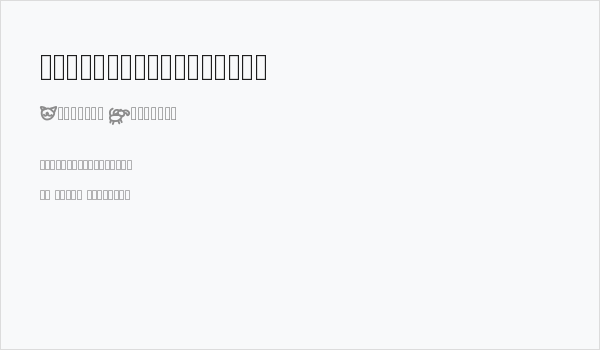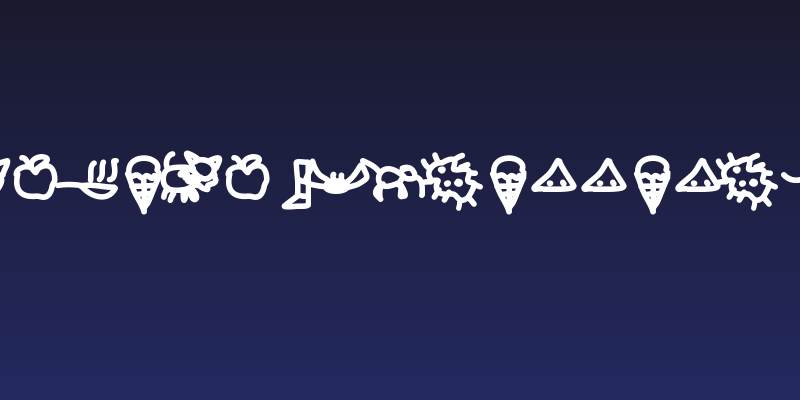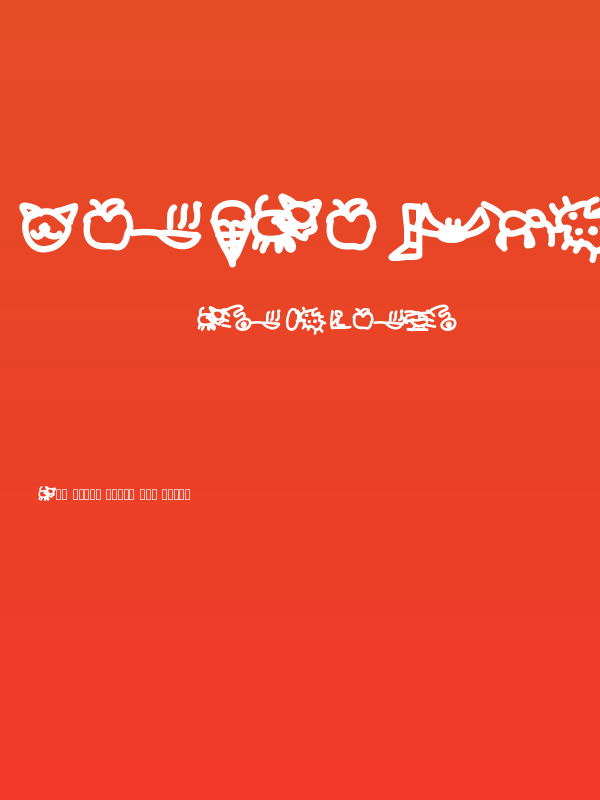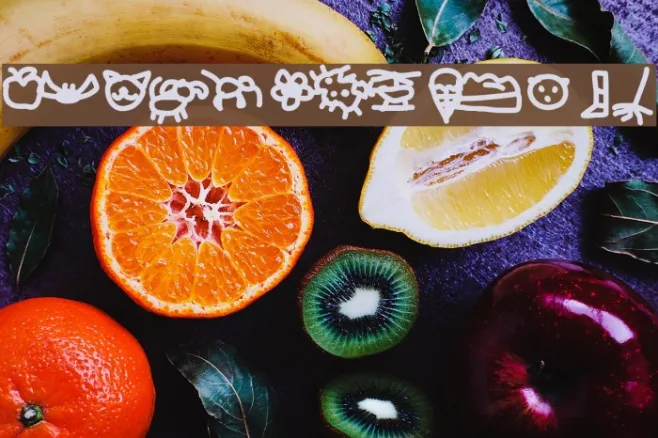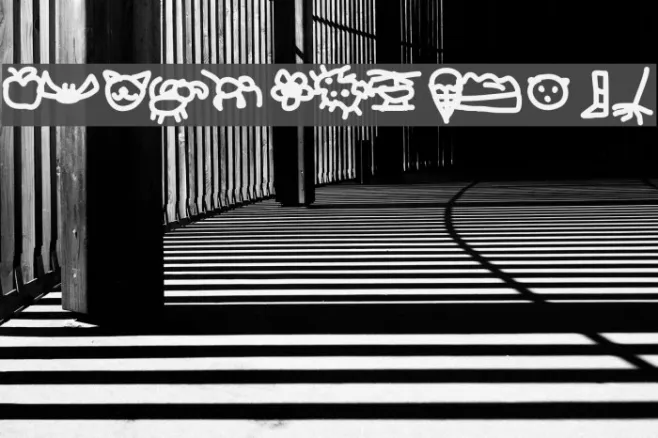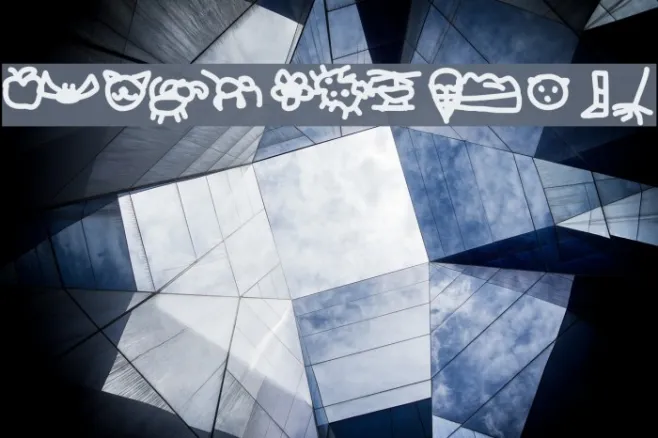
capitalbeginnings Font
capitalbeginnings Description
A highly decorative and illustrative font where each character is represented by a unique, playful pictogram or doodle, resembling hand-drawn icons rather than traditional letterforms. The style is whimsical and informal, with thick, uneven strokes and a cartoonish appearance.
| Overall Style | Decorative, Whimsical, Playful |
| Use Case | Logos, Headlines, Posters, Children's materials |
| Proposed Projects | Children's books, party invitations, playful branding, educational materials, creative posters, and art projects. |